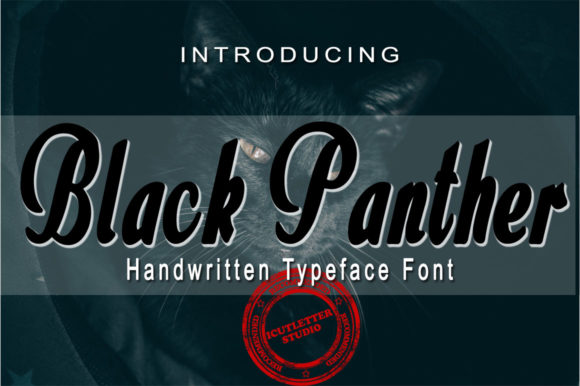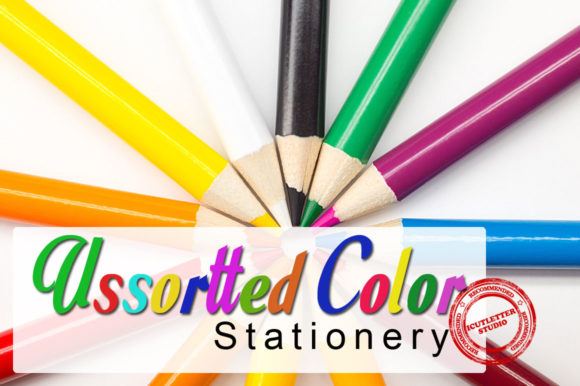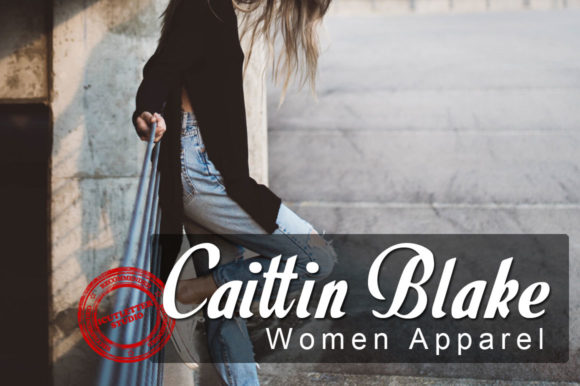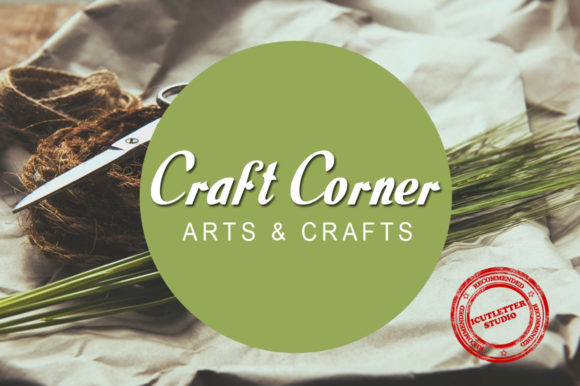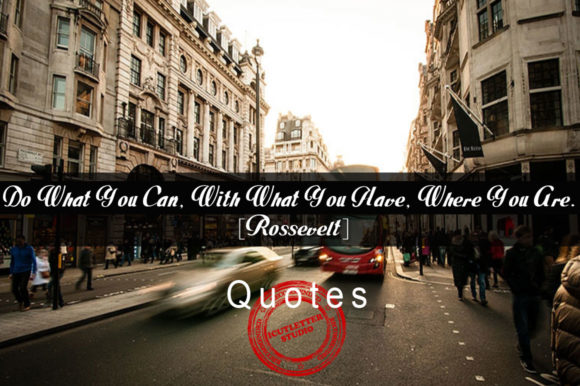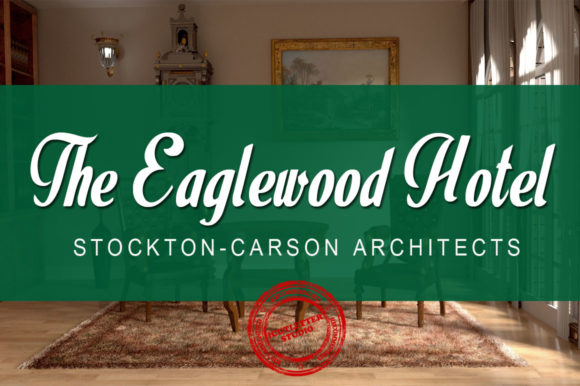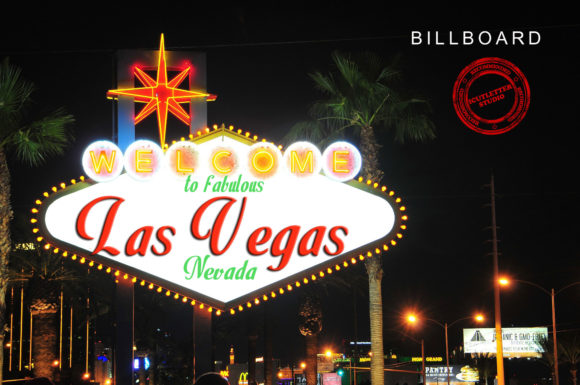
Black Panther Font
About Black Panther Font
Black Panther is a powerful handwritten font that updates classic elements in a modern way. It’s elegant yet striking, which makes it a perfectly versatile font for a wide range of designs.